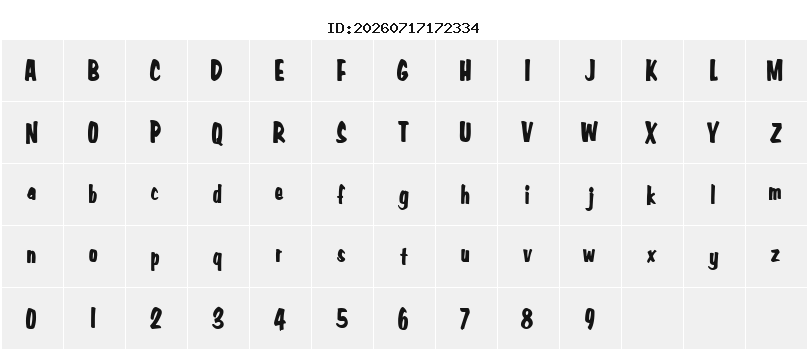
• Font Name: Big Nib-Condensed
• Full Font Name: Big Nib-Condensed Normal
About Big Nib-Condensed.ttf
Big Nib-Condensed.ttf is a modern, elegant sans-serif font designed for ultimate readability and visual harmony. Perfect for branding, headlines, web design, and print materials.